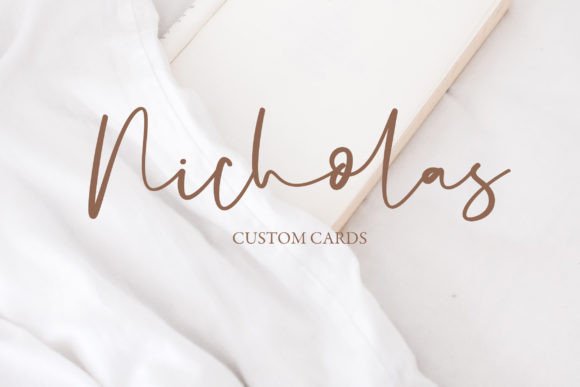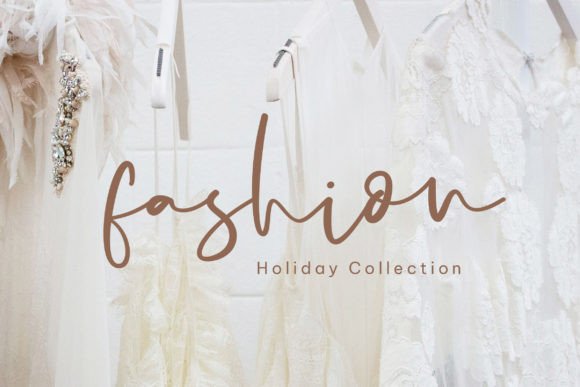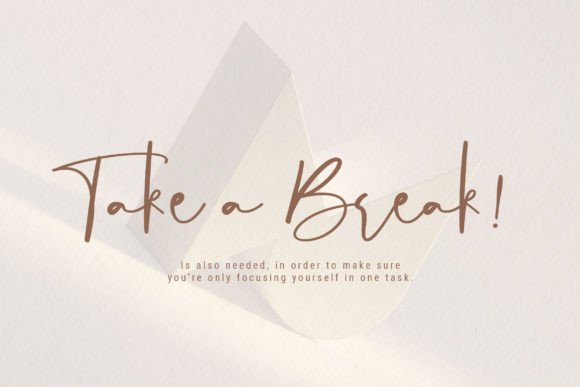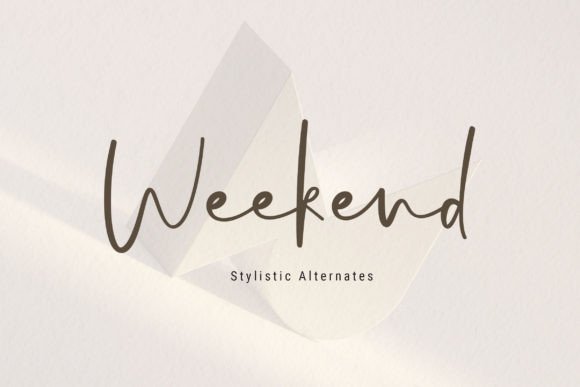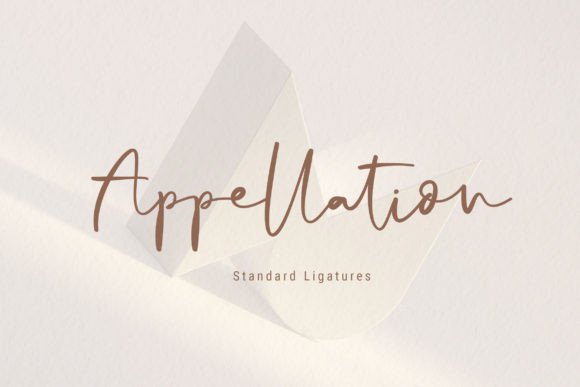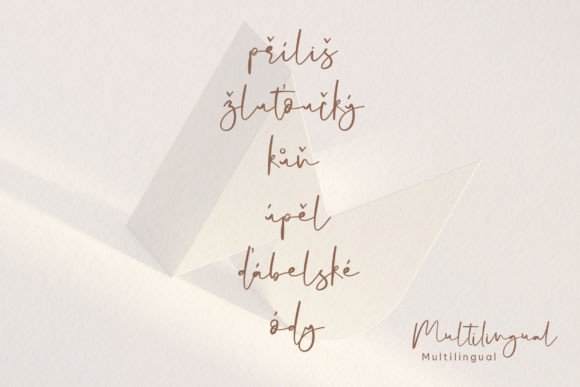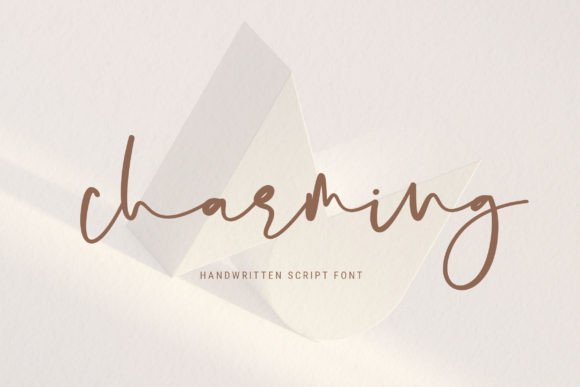
Unleash the Magic of Charming Typography
Remember that moment when you stumbled upon the perfect font, and suddenly your entire design concept came alive? It’s a feeling every designer knows and loves. For me, that moment happened when I discovered the Charming Font – a stylish and elegant handwritten font that elevates any project to new heights.
With its versatility and sophistication, the Charming Font is perfect for creating stunning headings, logos, ads, printed quotes, packaging, and even website or social media branding. Whether you’re a seasoned designer or just starting out, this font is a valuable addition to your toolkit, allowing you to make a lasting impression on your audience.
Key Features of Charming Font
- Unique Characteristics: The font features a unique blend of classic and modern elements, with intricate details and subtle flair, making it perfect for adding a touch of elegance to designs.
- Customization Options: The font includes a range of OpenType features, such as ligatures, swashes, and ornaments, allowing designers to add a personal touch to their designs.
Charming Font Review
Overall, I found “Charming Font” to be a visually appealing font that’s perfect for creating a whimsical and romantic atmosphere. ✨ The script-like design is elegant and sophisticated, making it suitable for wedding invitations, greeting cards, and other special occasion materials.
The font’s flexibility is one of its strongest points. ✨ It comes in a variety of weights and styles, allowing designers to experiment with different looks and moods. Additionally, the font is highly customizable, making it easy to adjust the spacing, size, and color to fit the design’s requirements.
- ⚠️ The font may not be suitable for digital displays due to its complex design, which can lead to pixelation and clarity issues.
- ⚠️ The font’s script-like design can make it difficult to read in certain situations, such as in small sizes or with low contrast backgrounds.
Overall, I think “Charming Font” is a great addition to any designer’s toolkit. While it has some limitations, its unique design and flexibility make it a valuable asset for creating visually stunning designs. With careful use and consideration, designers can unlock the full potential of this charming font.
Charming Font is a versatile and elegant script font that can be used in various design applications. To use it in your projects, follow these steps:
- Use Charming Font for headings and titles to create a sense of elegance and sophistication